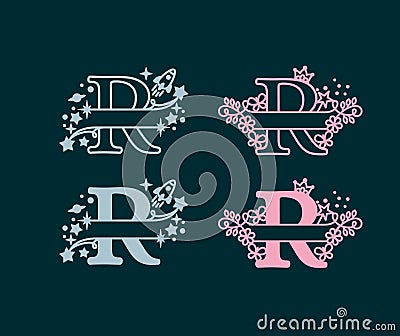
Alphabet Split Monograms. Baby Name Monogram. Split Letter Monogram. Alphabet Frame Font. Laser Cut Template. Initial Monogram Let Cartoon Vector
Alphabet Split Monograms. Baby name monogram. Split Letter Monogram. Alphabet Frame Font. Laser cut template. Initial monogram letters. Nautical nursery art, room wall art, Nursery Sign.